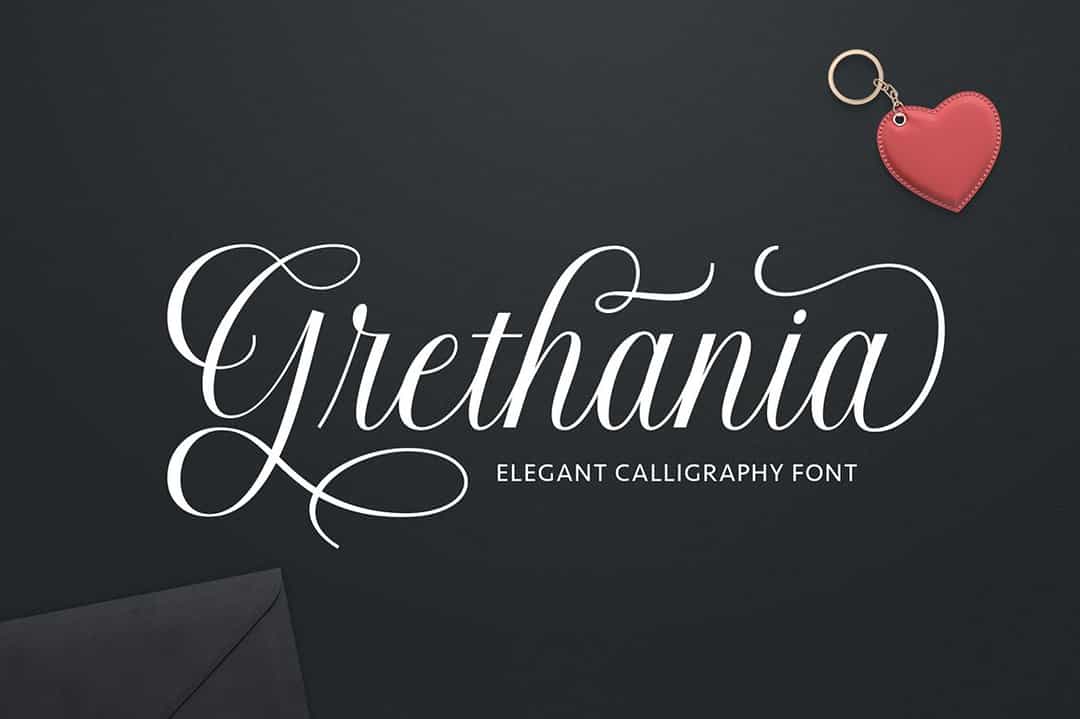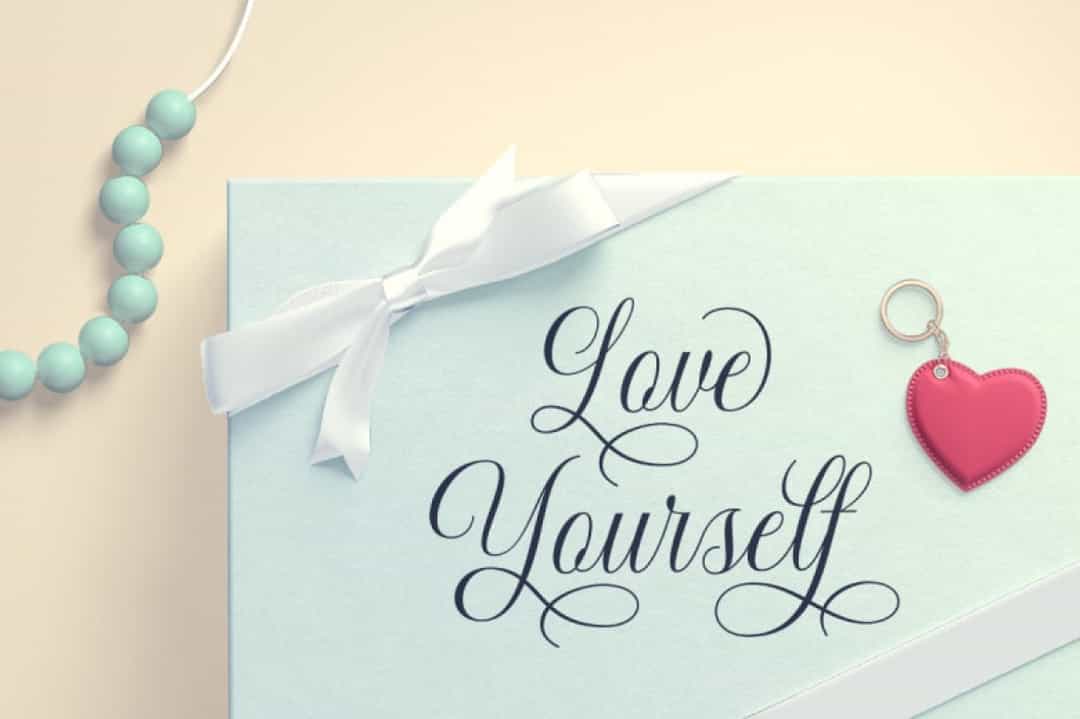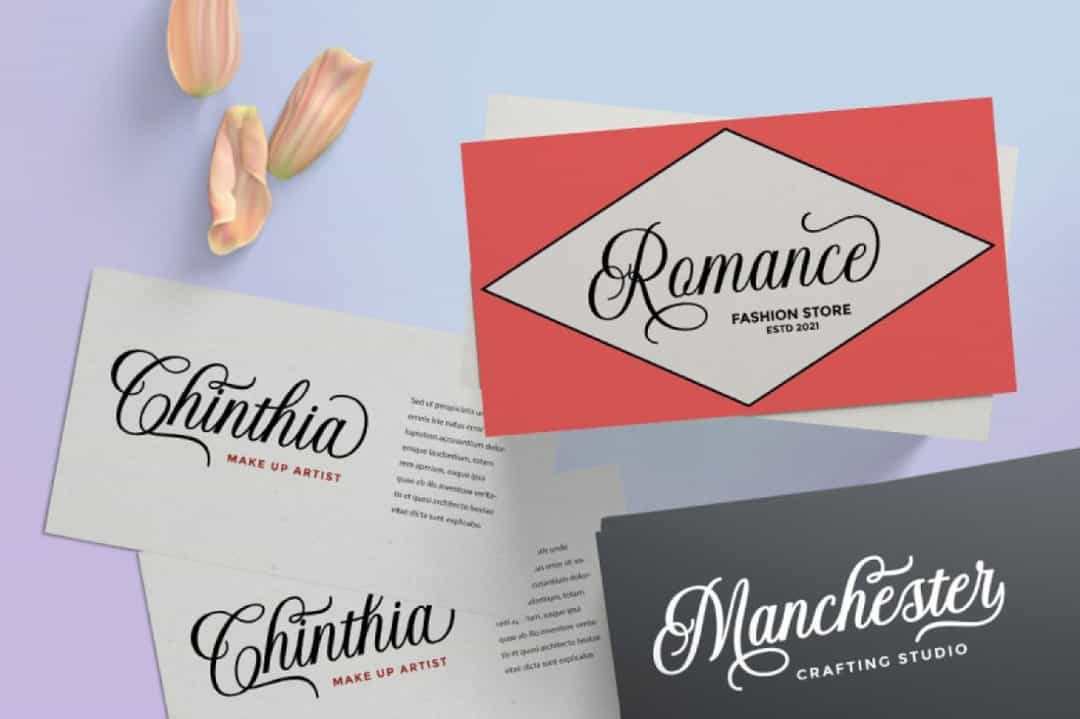
Grethania is an elegant script type featuring beautiful alternative characters. A blend of copper-plated calligraphy and handwriting style, Grethania was designed to express class. Grethania stands out as being visually appealing yet effortless: smooth elegant feminine sensuous beautiful straightforward simple. It makes an impactful statement.